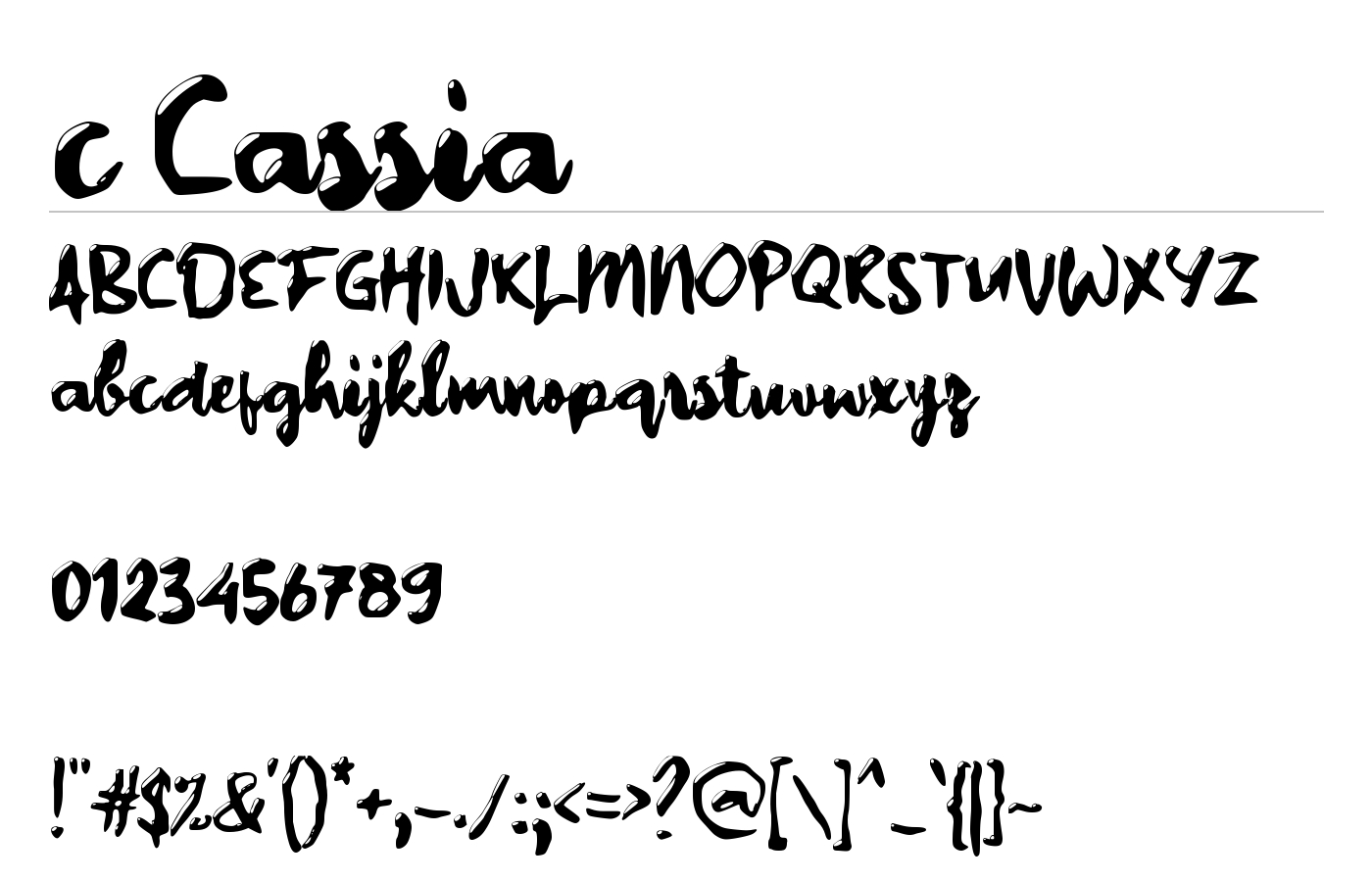
Cassia is a bold, brush-style script font with a playful and lively character. Its thick, irregular strokes and slightly condensed letterforms give it an energetic, hand-painted feel, making it ideal for creative designs that want to convey warmth and personality. This font works wonderfully for logos, posters, and packaging where a casual yet impactful look is desired.
c Cassia Font
About c Cassia Font